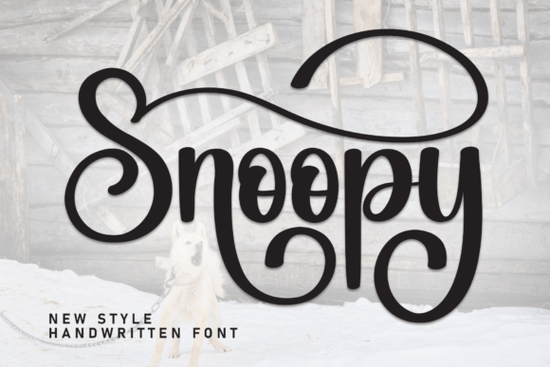
If you are looking for a handwritten typeface that balances elegance with everyday usability, Snoopy Font delivers exactly that. It is a flowing script designed to feel personal without sacrificing readability. Crafters, wedding stationers, and small business owners often choose this style because it mimics natural pen strokes while keeping consistent spacing. Whether you are laying out thank you cards, designing a boutique logo, or preparing quote graphics for social media, the font gives your work a polished, hand-lettered finish without requiring hours of custom illustration.
What makes this script font work for wedding and branding projects?
Invitations and brand identities need to feel intentional. Stiff scripts look corporate, while overly decorative ones become hard to read at small sizes. This typeface strikes a practical middle ground. Gentle curves and controlled swashes let you use it for names or short phrases without overwhelming the page. Keep the script for focal text and let supporting details breathe. For casual notes, explore a relaxed handwritten alternative that leans toward a sketchy, informal style. When you need built-in contrast, pairing it with a playful duo typeface can give you both a script and a clean companion in one download.
How do I pair it with other typefaces without cluttering the layout?
Script fonts perform best when they are treated as the accent, not the foundation. A reliable approach is to use the handwritten style for titles, names, or short quotes, then switch to a simple sans serif or serif for addresses, dates, and body copy. Limit your palette to two typefaces total. If you are working on a logo suite or a set of product labels, test the script at various sizes before finalizing. Some letters may connect beautifully at 36pt but lose clarity at 14pt. When you want to stay within the same family but need a slightly different mood, browsing this exact script collection helps you compare weights and alternates side by side. If your project calls for something softer and more romantic, a gentle handwritten option can provide a quieter contrast while maintaining that personal touch.
- Pair wisely: Use the script for headlines only, and keep supporting text in a clean, highly legible font.